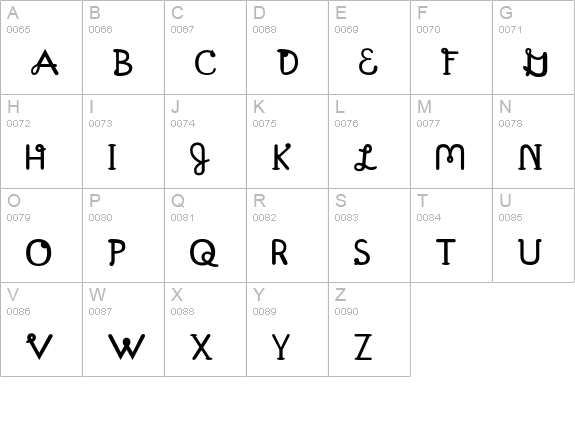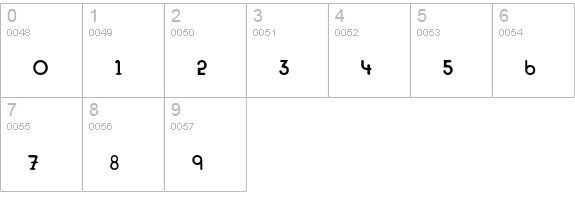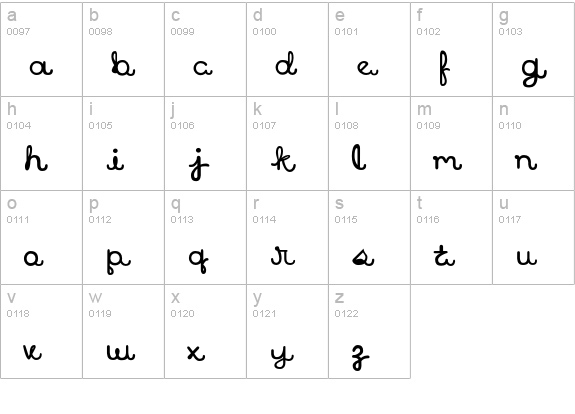
Treattype-Regular is the standard, neutral variant in the Treattype typeface family \xE2\x80\x94 well suited to general body text, paragraphs, and standard typographic work.
Treattype-Regular is a visually stunning font that exudes elegance and sophistication. Its smooth curves and clean lines make it perfect for a wide range of design projects, from branding and advertising to invitations and packaging. This font strikes the perfect balance between modernity and classic design, making it a versatile choice for any creative endeavor. One of the most appealing aspects of Treattype-Regular is that it is available for free. Yes, you read that right - this incredible font can be downloaded at no cost from FontsMarket.com. Whether you're a professional designer or a hobbyist, you can enjoy the benefits of this high-quality font without breaking the bank. With its wide range of characters, including uppercase and lowercase letters, numbers, and punctuation marks, Treattype-Regular offers endless possibilities for creating captivating typography. Its legibility and versatility make it suitable for both large-scale headlines and small body text. The carefully crafted letterforms ensure that every word stands out, leaving a lasting impression on your audience. No matter the project, Treattype-Regular will add a touch of sophistication and professionalism. Its timeless design and effortless charm make it a font that will never go out of style. So why wait? Head over to FontsMarket.com and download Treattype-Regular for free today. Elevate your designs and make a statement with this exceptional font.